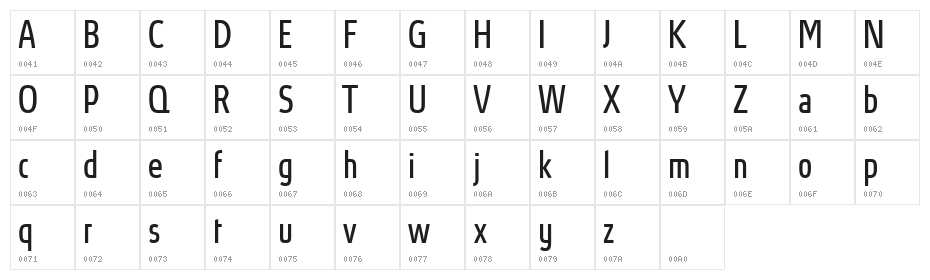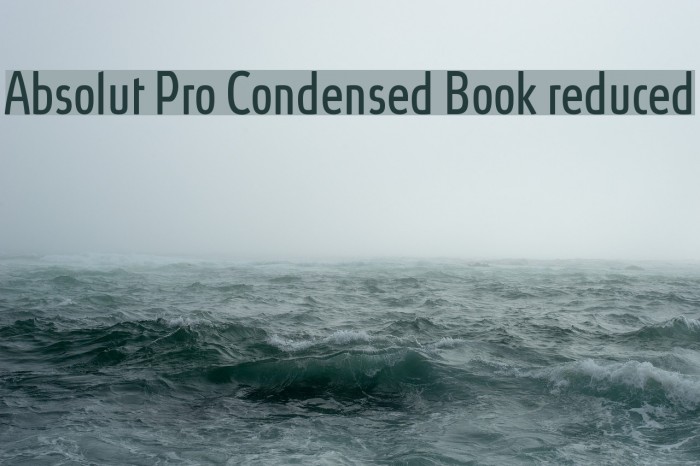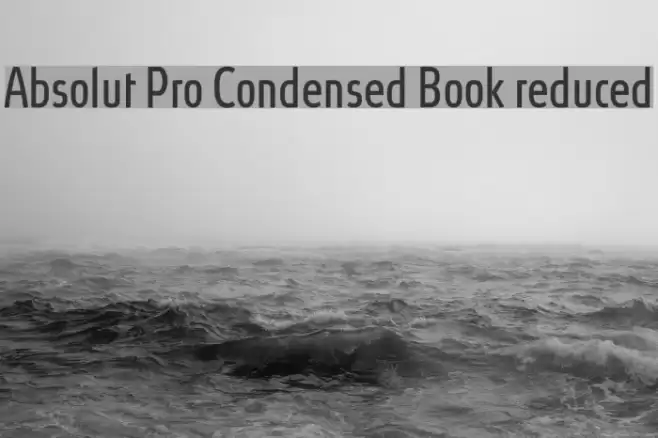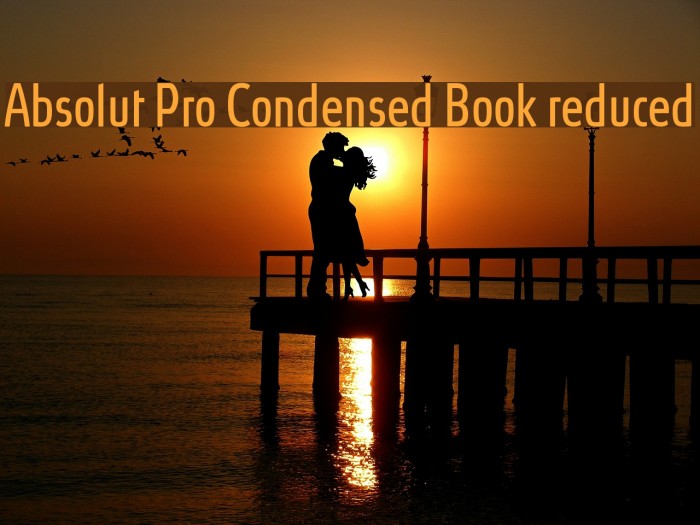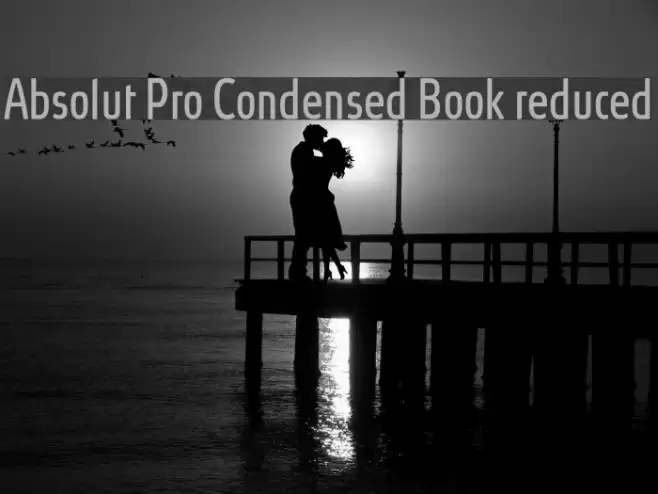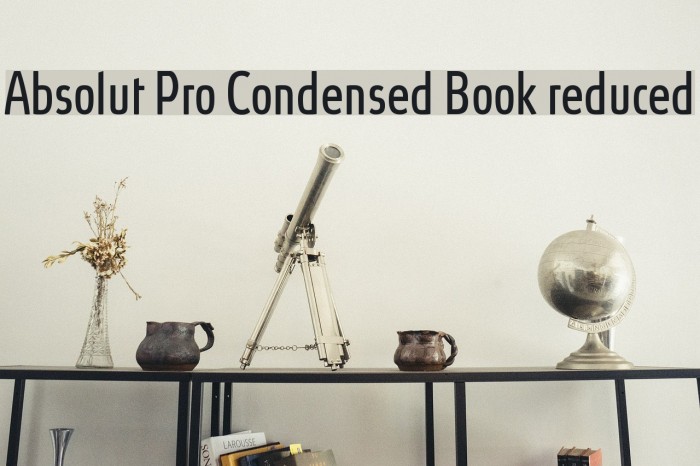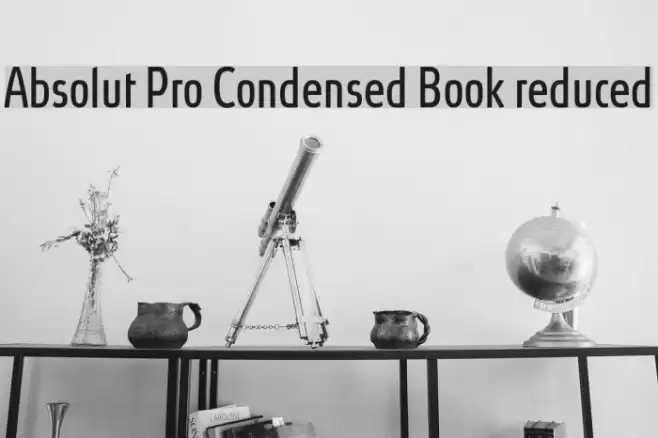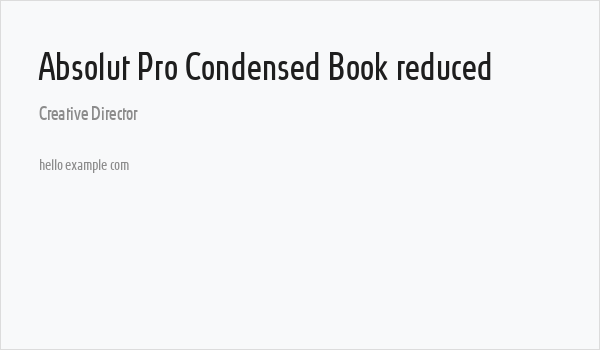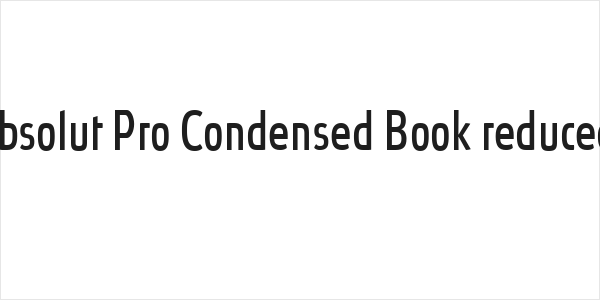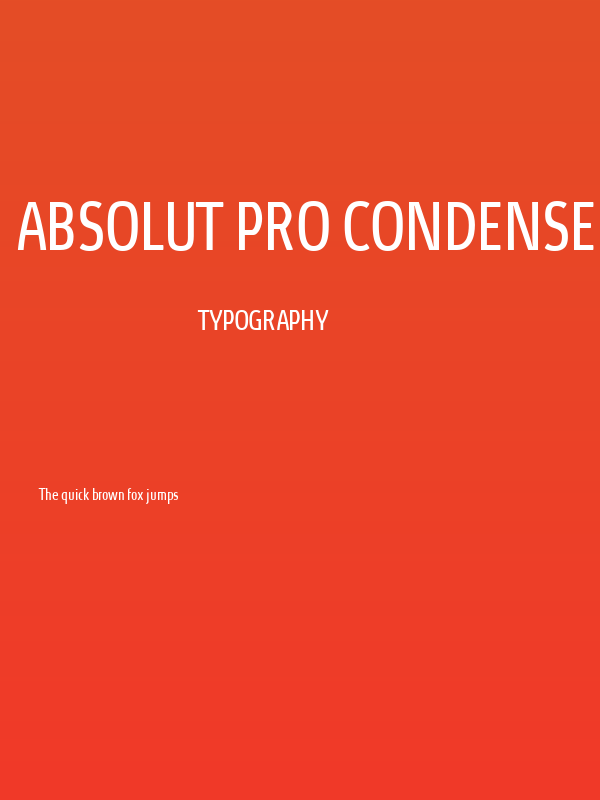
Absolut Pro Condensed Book reduced Font
Absolut Pro Condensed Book reduced Description
This font features a clean and modern sans-serif design with a condensed structure, making it ideal for space-saving applications. The characters are uniformly designed with a consistent stroke width, providing a balanced and harmonious appearance. The uppercase and lowercase letters are well-proportioned, ensuring readability and clarity. The font's geometric shapes and straight lines contribute to its contemporary look, while the slightly rounded edges add a touch of softness. It is versatile and can be used in various design contexts, from digital interfaces to print media.
| Proposed Projects | Ideal for branding, editorial design, web interfaces, and advertising materials. |